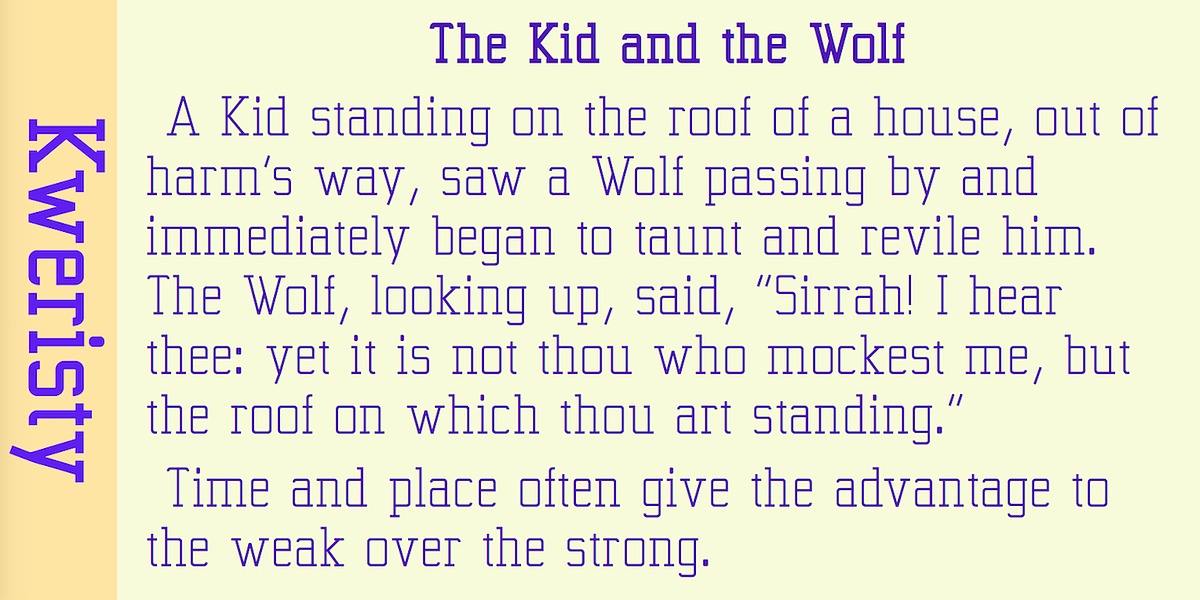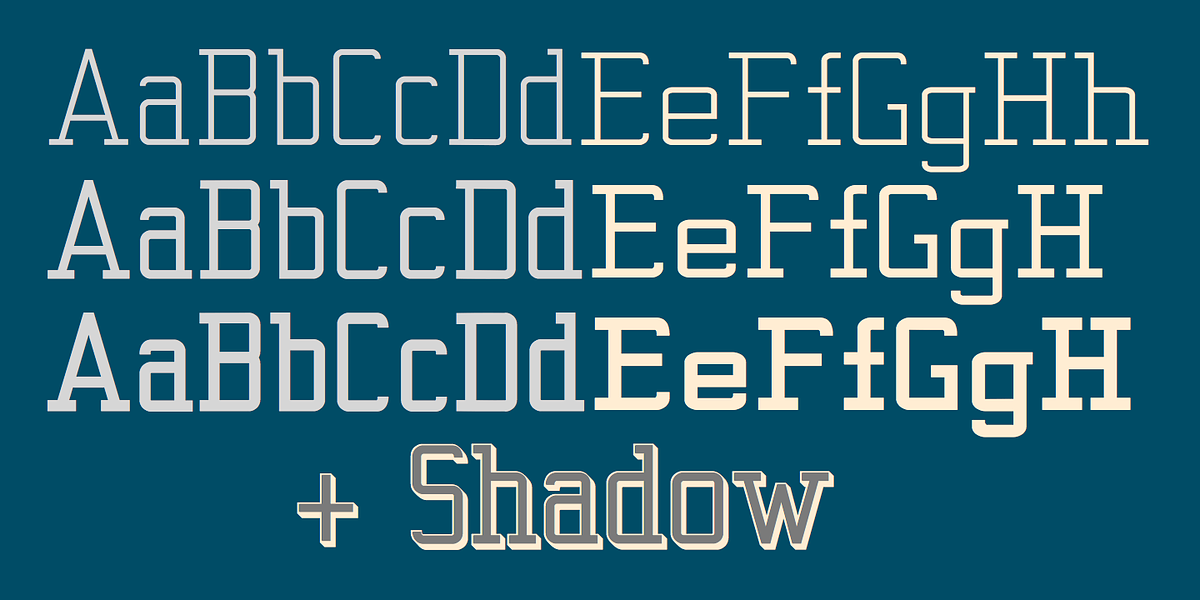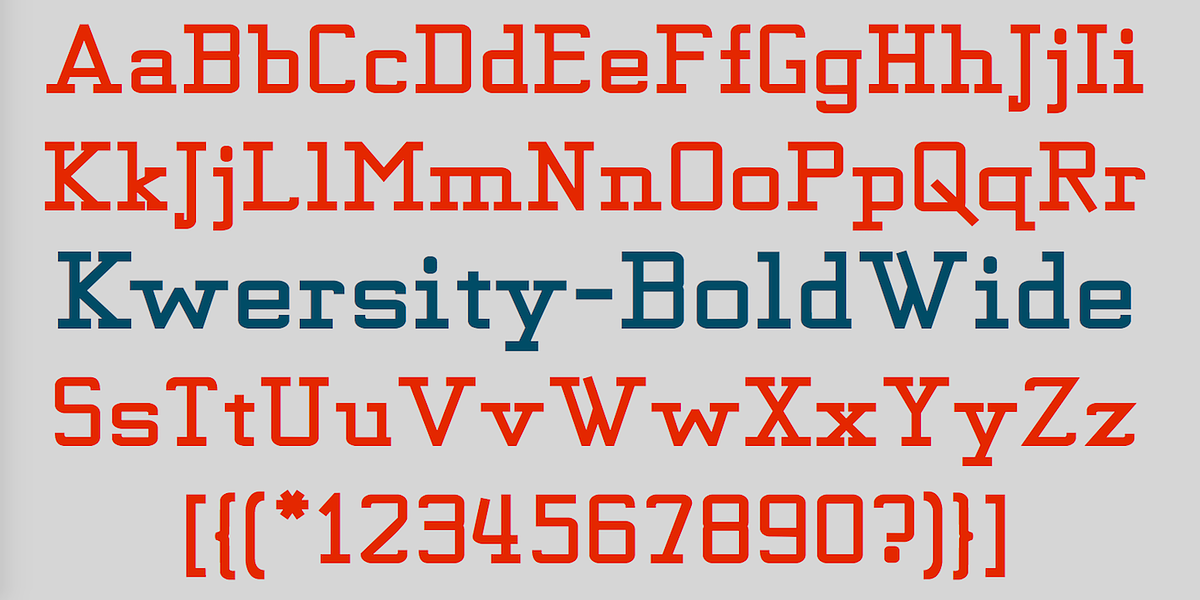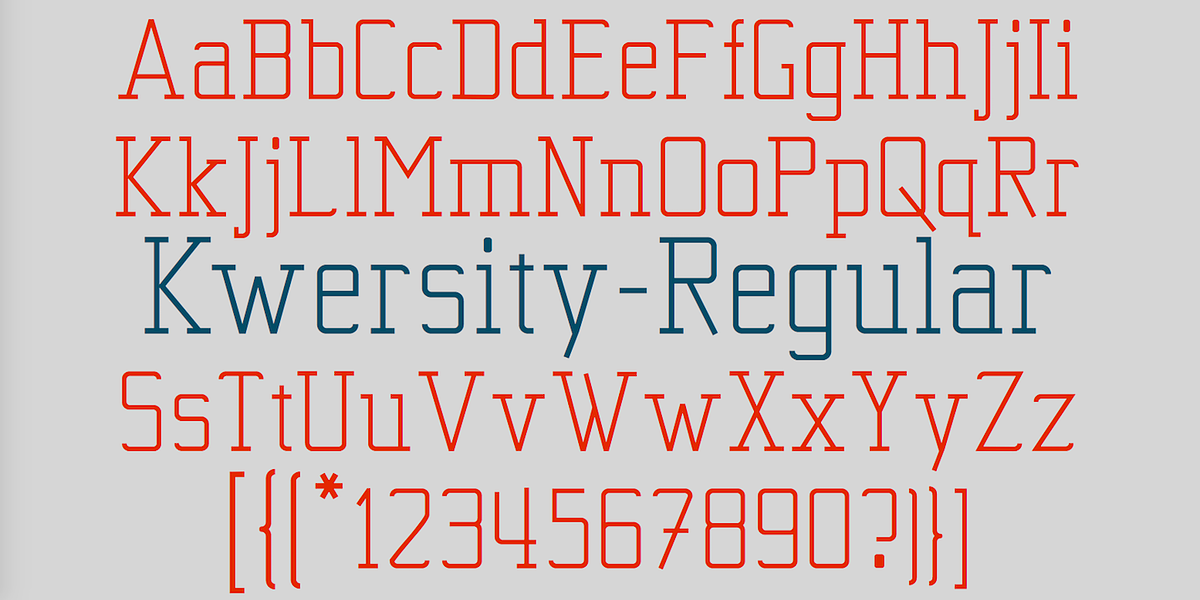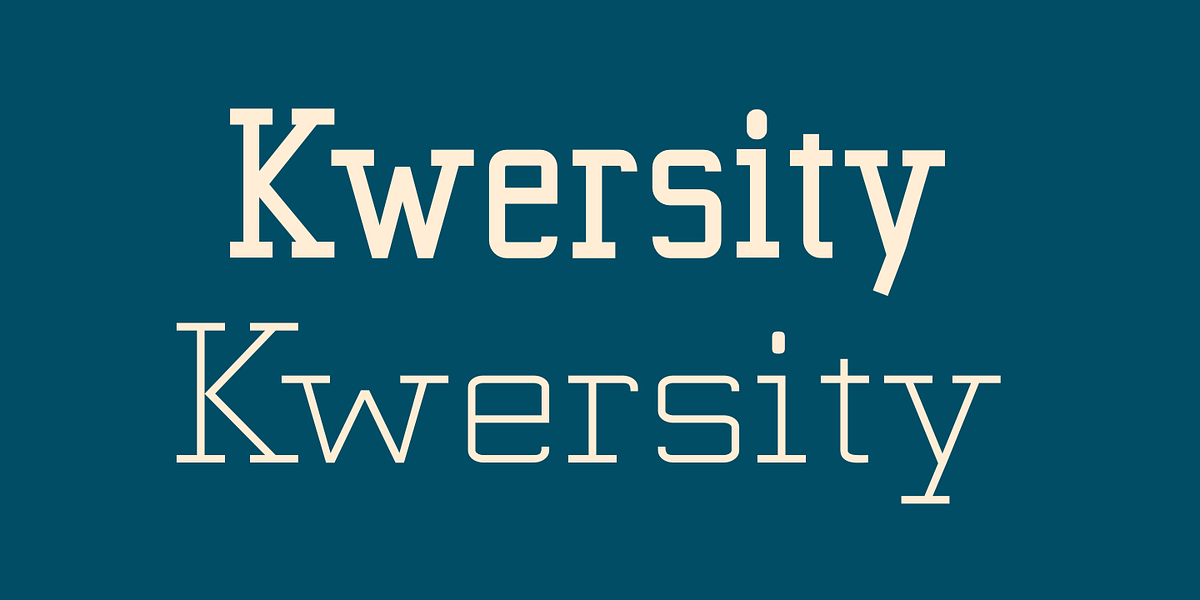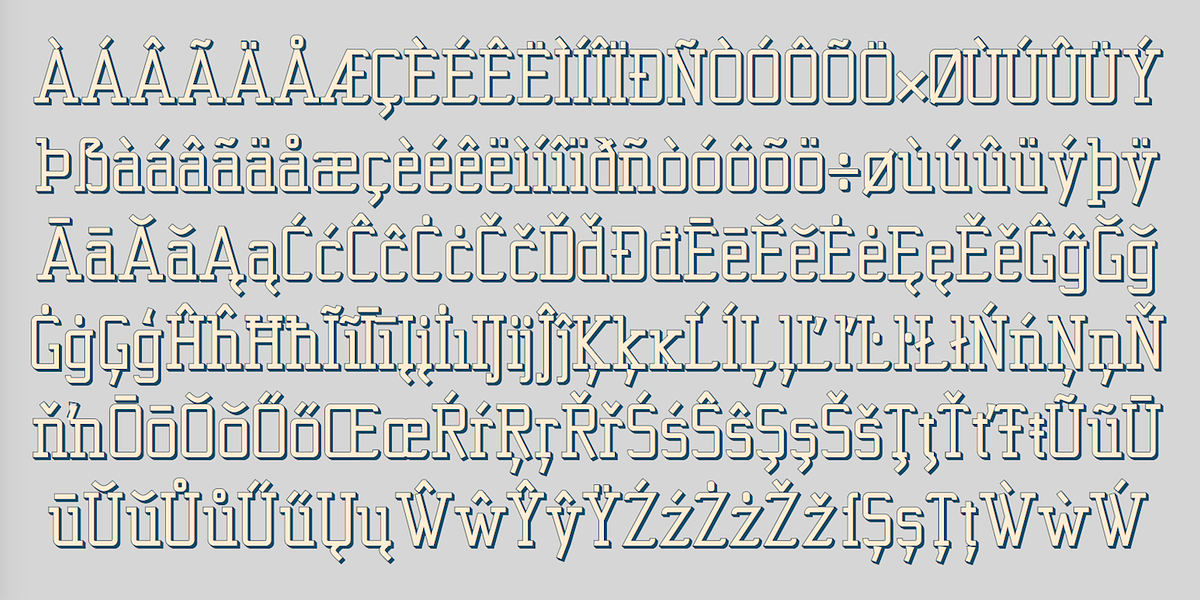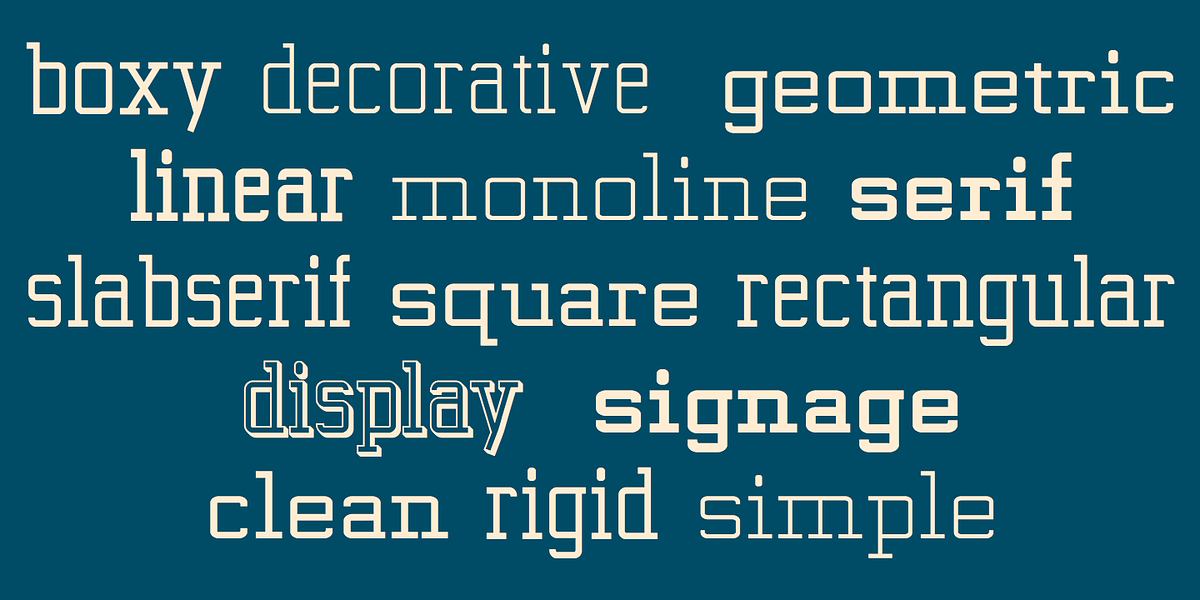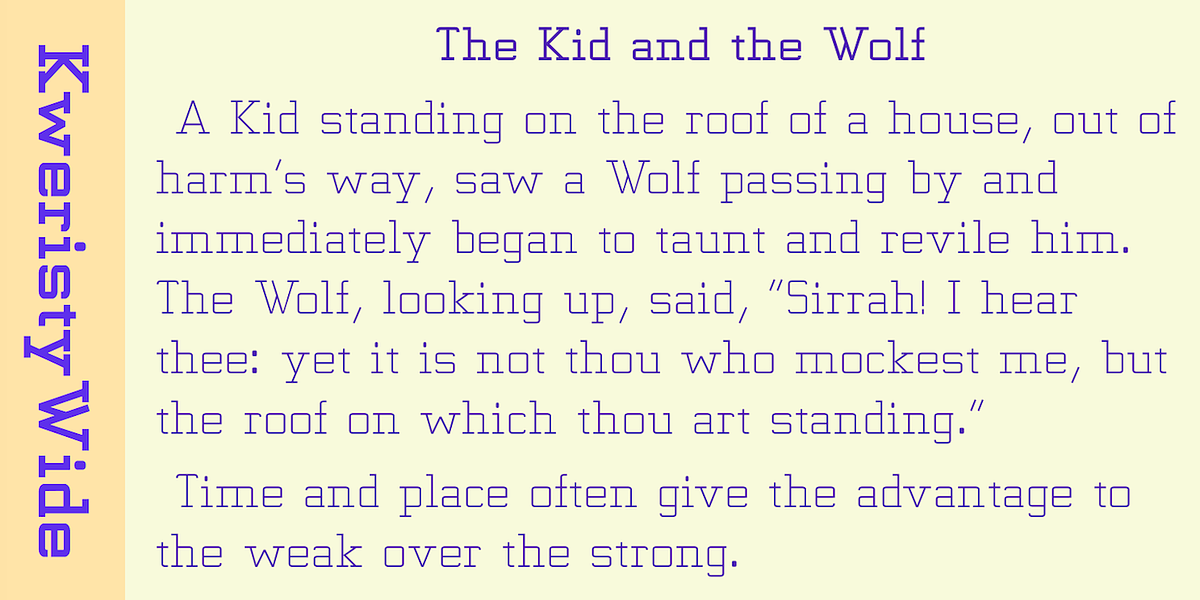
Kwersity
Kwersity is a distinctive slab serif typeface characterized by its boxy, geometric forms. The strokes maintain a uniform weight throughout, and the circular elements are rendered as near-rectangles. It comes in both narrower and wider styles, each offering regular, semi-bold, and bold weights. A shadow version allows for layering effects to color the interior of the letters.